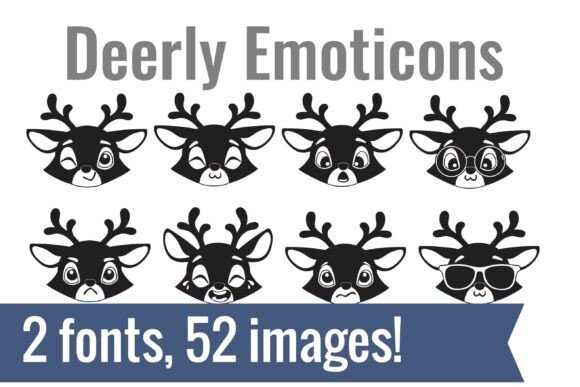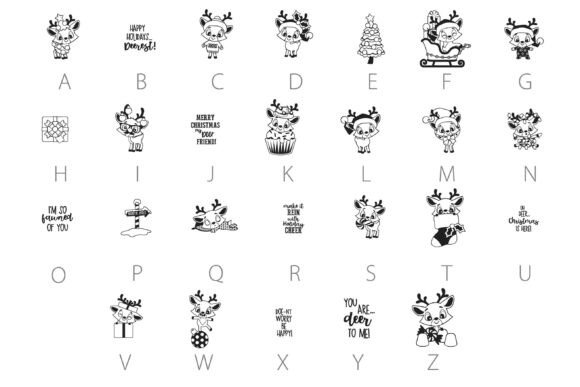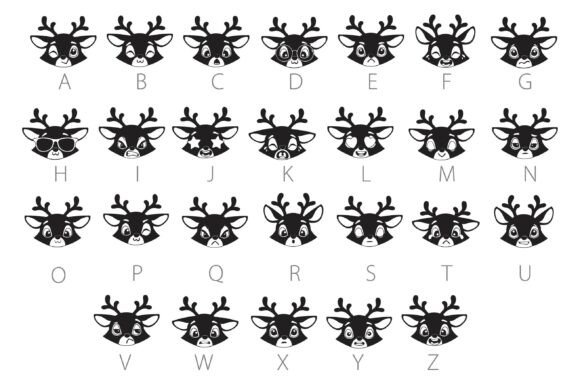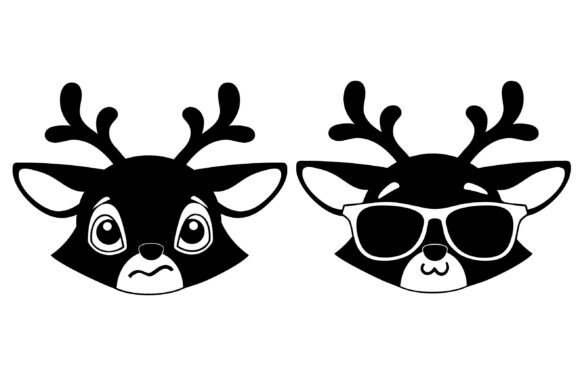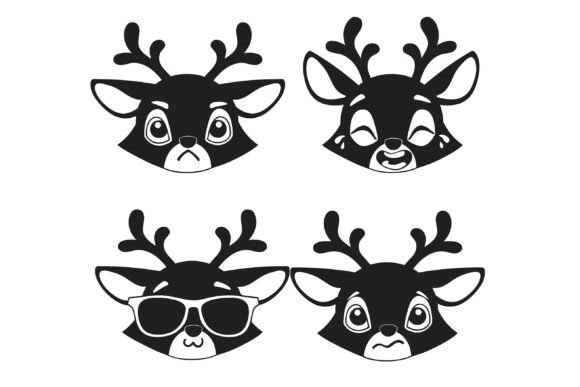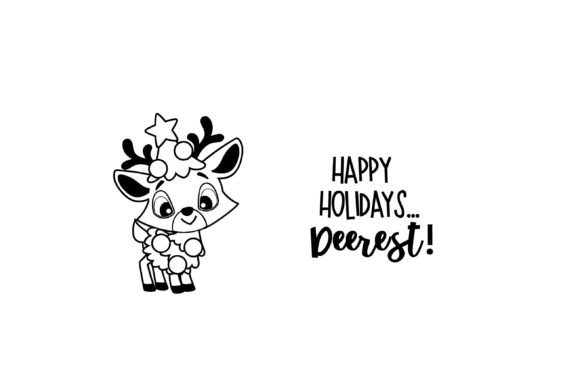
Unlock Endless Creativity with Deerly Dingbats Font
Are you looking for a font that captures the innocent charm of the holiday season? Look no further than the Deerly Dingbats Font, a delightful pairing of two dingbat typefaces featuring an array of charming, wide-eyed fawn and reindeer characters. This enchanting collection delivers 52 adorable glyphs showcasing sweet deer in various festive poses, perfect for designers and crafters looking to add a touch of magic to their projects.
A Beautiful Line-Art Style
The Deerly typeface has a beautiful, clean line-art style, making the characters easy to color, layer, or use as outlines for print-and-cut applications. This high-quality dingbat font is an absolute joy for creators of children’s apparel, nursery prints, personalized school items, holiday party favors, and more. Whether you’re a professional designer or a crafter looking for a unique touch, Deerly Dingbats Font is sure to inspire your creativity.
Two Perfectly Coordinated Fonts
There are two dingbat fonts in this bundle, both featuring the cutest Christmas reindeer. The Deerly font set includes a range of characters, from deer wearing tiny sweaters and Santa hats to those frolicking in the snow and pulling a sleigh laden with gifts. The accompanying decorative text, such as “HAPPY HOLIDAYS… Deerest!”, perfectly complements the playful and heartfelt tone of the illustrations.
With Deerly Dingbats Font, the creative possibilities are endless. Use the font to create:
- Adorable children’s apparel, such as onesies and t-shirts
- Whimsical nursery prints and wall art
- Personalized school items, like pencil cases and lunchboxes
- Festive holiday party favors, such as gift tags and decorations
- Beautiful stationery and gift wrap
Why Choose Deerly Dingbats Font?
Here are just a few reasons why Deerly Dingbats Font is a must-have for designers and crafters:
- Unique and charming illustrations that capture the spirit of the holiday season
- High-quality, clean line-art style that’s easy to work with
- Two perfectly coordinated fonts for maximum creative flexibility
- 52 adorable glyphs to inspire your creativity
- Perfect for a range of projects, from children’s apparel to holiday decorations
Tips for Using Deerly Dingbats Font
Here are a few tips for getting the most out of Deerly Dingbats Font:
- Experiment with different colors and textures to bring your designs to life
- Use the font to create custom illustrations and graphics for your projects
- Mix and match the different glyphs to create unique and interesting compositions
- Don’t be afraid to get creative and try new things – the Deerly font set is designed to inspire your imagination!